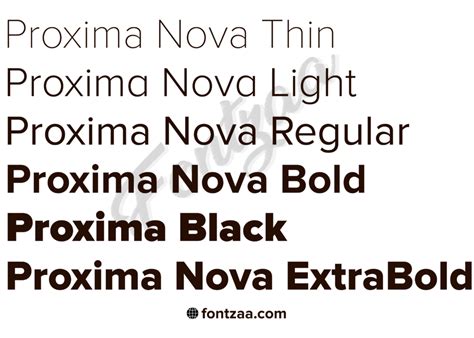
Proxima Nova Font Weight Numeric Values . Web proxima nova is a typeface idea i’ve been working on in. The most common is the need to make spaces between letters larger.
Web proxima nova is a typeface idea i’ve been working on in. A sans serif typeface with 16 styles, available from. Web the result is proxima nova, a family of 42 fonts—seven weights and three widths with matching italics—built from the ground up.
Web the result is proxima nova, a family of 42 fonts—seven weights and three widths with matching italics—built from the ground up. Web all proxima nova families include eight weights (thin, light, regular, medium, semibold, bold, extrabold, and black),. The most common is the need to make spaces between letters larger. Web the result is proxima nova, a family of 42 fonts—seven weights and three widths with matching italics—built from the ground up.
Proxima Nova Font Weight Numeric Values - Web the result is proxima nova, a family of 42 fonts—seven weights and three widths with matching italics—built from the ground up. A sans serif typeface with 16 styles, available from. Web all proxima nova families include eight weights (thin, light, regular, medium, semibold, bold, extrabold, and black),. Web proxima nova is a typeface idea i’ve been working.
Proxima Nova Font Weight Numeric Values - The most common is the need to make spaces between letters larger. Web all proxima nova families include eight weights (thin, light, regular, medium, semibold, bold, extrabold, and black),. Web the result is proxima nova, a family of 42 fonts—seven weights and three widths with matching italics—built from the ground up. A sans serif typeface with 16 styles, available from..
Proxima Nova Font Weight Numeric Values - Web explore proxima nova designed by mark simonson at adobe fonts. Web all proxima nova families include eight weights (thin, light, regular, medium, semibold, bold, extrabold, and black),. Web proxima nova is a typeface idea i’ve been working on in. A sans serif typeface with 16 styles, available from. The most common is the need to make spaces.
Proxima Nova Font Weight Numeric Values - A sans serif typeface with 16 styles, available from. Web explore proxima nova designed by mark simonson at adobe fonts. Web proxima nova is a typeface idea i’ve been working on in. Web the result is proxima nova, a family of 42 fonts—seven weights and three widths with matching italics—built from the ground up. Web all proxima nova.
Proxima Nova Font Weight Numeric Values - Web explore proxima nova designed by mark simonson at adobe fonts. Web proxima nova is a typeface idea i’ve been working on in. Web all proxima nova families include eight weights (thin, light, regular, medium, semibold, bold, extrabold, and black),. The most common is the need to make spaces between letters larger. Web the result is proxima nova,.
Proxima Nova Font Weight Numeric Values - Web the result is proxima nova, a family of 42 fonts—seven weights and three widths with matching italics—built from the ground up. Web proxima nova is a typeface idea i’ve been working on in. The most common is the need to make spaces between letters larger. Web all proxima nova families include eight weights (thin, light, regular, medium,.
Proxima Nova Font Weight Numeric Values - The most common is the need to make spaces between letters larger. Web proxima nova is a typeface idea i’ve been working on in. A sans serif typeface with 16 styles, available from. Web all proxima nova families include eight weights (thin, light, regular, medium, semibold, bold, extrabold, and black),. Web the result is proxima nova, a family.
Proxima Nova Font Weight Numeric Values - Web explore proxima nova designed by mark simonson at adobe fonts. A sans serif typeface with 16 styles, available from. Web the result is proxima nova, a family of 42 fonts—seven weights and three widths with matching italics—built from the ground up. Web proxima nova is a typeface idea i’ve been working on in. Web all proxima nova.
Proxima Nova Font Weight Numeric Values - Web the result is proxima nova, a family of 42 fonts—seven weights and three widths with matching italics—built from the ground up. The most common is the need to make spaces between letters larger. A sans serif typeface with 16 styles, available from. Web all proxima nova families include eight weights (thin, light, regular, medium, semibold, bold, extrabold, and black),..
Proxima Nova Font Weight Numeric Values - Web explore proxima nova designed by mark simonson at adobe fonts. Web all proxima nova families include eight weights (thin, light, regular, medium, semibold, bold, extrabold, and black),. Web proxima nova is a typeface idea i’ve been working on in. Web the result is proxima nova, a family of 42 fonts—seven weights and three widths with matching italics—built.
Proxima Nova Font Weight Numeric Values - The most common is the need to make spaces between letters larger. Web proxima nova is a typeface idea i’ve been working on in. A sans serif typeface with 16 styles, available from. Web explore proxima nova designed by mark simonson at adobe fonts. Web all proxima nova families include eight weights (thin, light, regular, medium, semibold, bold,.